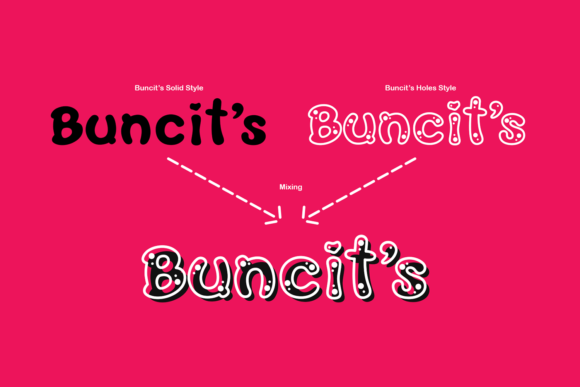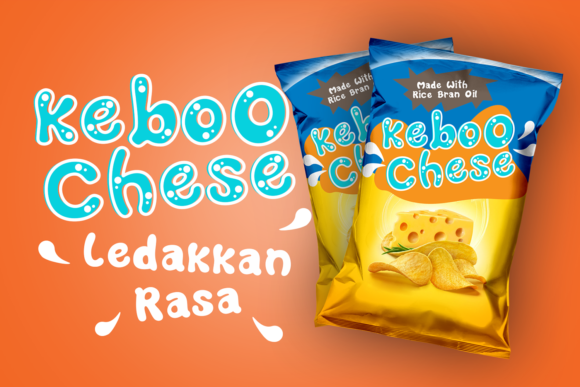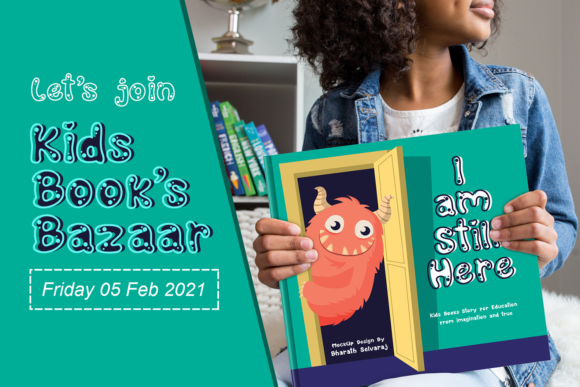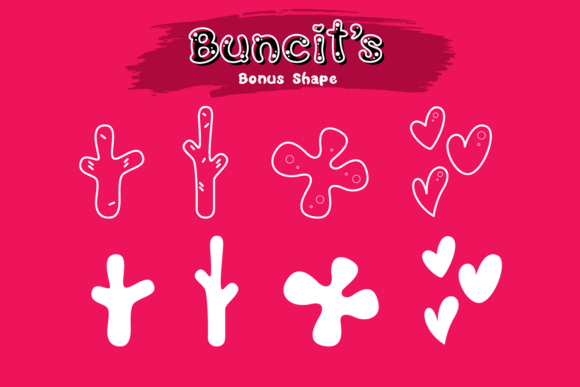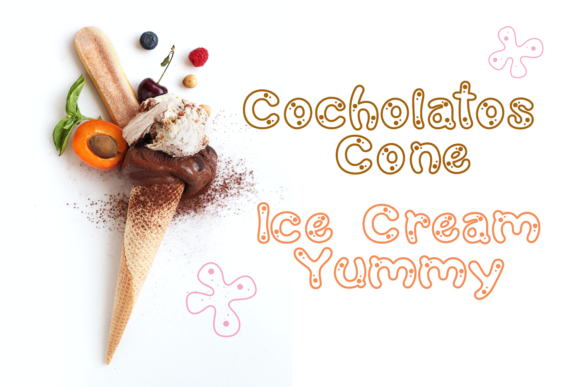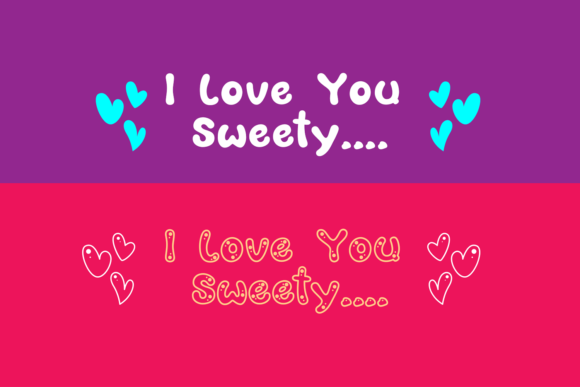
Introduction to Buncit’s Font
Have you ever been working on a creative project, pouring your heart and soul into it, only to feel like something’s missing? A spark of inspiration, a dash of creativity, a pinch of style – that’s what Buncit’s Font brings to the table. This lovely and unique display font is the perfect addition to any designer’s library, elevating your work to new heights and leaving a lasting impression on your audience.
With its high quality design and transparent background, Buncit’s Font is an asset that’s sure to make your projects stand out. Whether you’re working on a logo, a brochure, or a website, this font has the potential to take your design to the next level. And the best part? It’s available for free download, making it an accessible design resource for designers of all levels.
Key Features of Buncit’s Font
- High-quality, professional design ideal for creative projects
- Transparent background, allowing for seamless integration into various designs
- Designed at a high resolution of 300 DPI, ensuring crisp and clear text rendering
- Unique, modern design that stands out from standard fonts, perfect for making a statement in creative projects
Honest Review: Buncit’s Font
I recently stumbled upon Buncit’s Font while searching for a design resource to enhance my creative project. I was immediately drawn to its sleek and modern aesthetic, making it perfect for a high-quality design.
The font offers a transparent background option, which is a game-changer for me. It allows for seamless integration with other design elements and adds a level of sophistication to my work. ✨
Here are some of the key features that I appreciate:
- High-quality design that stands out in any creative project
- Customizable options for a tailored look
- Transparent background for added flexibility
⚠️ The font library is a bit limited, and I wish there were more options to choose from.
⚠️ Some of the characters may not be as precise as I’d like, which can affect the overall quality of my design.
Overall, I’m impressed with Buncit’s Font and would recommend it to fellow designers. Its high-quality design and transparent background make it an excellent addition to any creative project. With a few tweaks to the font library and character precision, it could be a top-notch design resource.
Buncit’s Font is suitable for a wide range of creative projects, including:
– Presentations
– Document design
– Infographics
Can I customize the color or style of Buncit’s Font?
Yes, Buncit’s Font supports various style and color options, making it a versatile design resource. You can experiment with different font sizes, colors, and effects to suit your creative project’s requirements. Additionally, the font’s transparent background feature allows for seamless integration with other design elements.